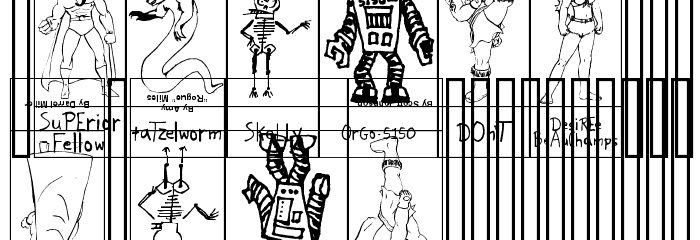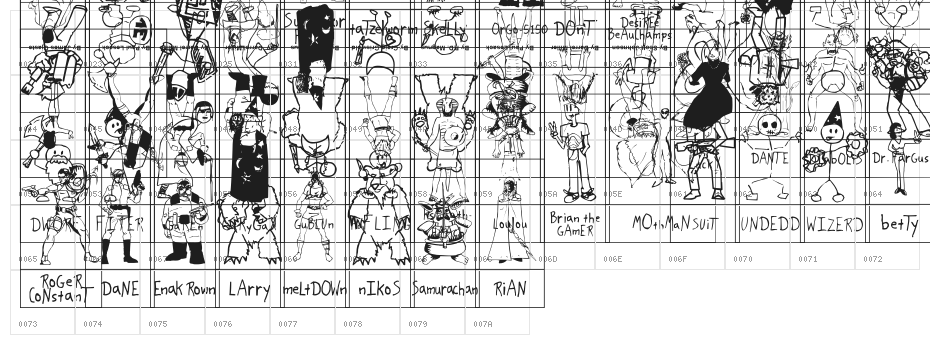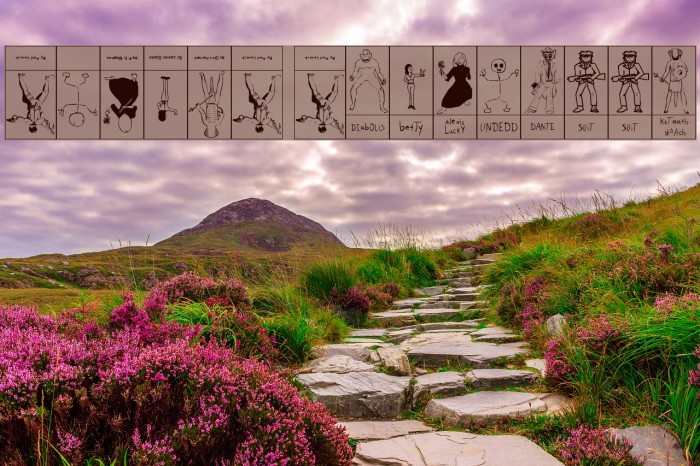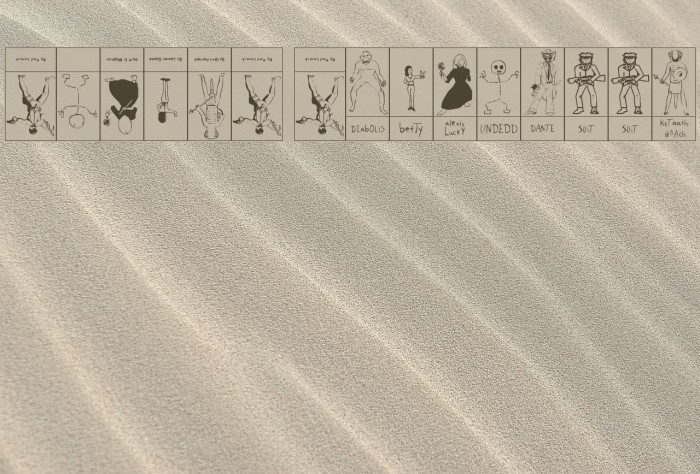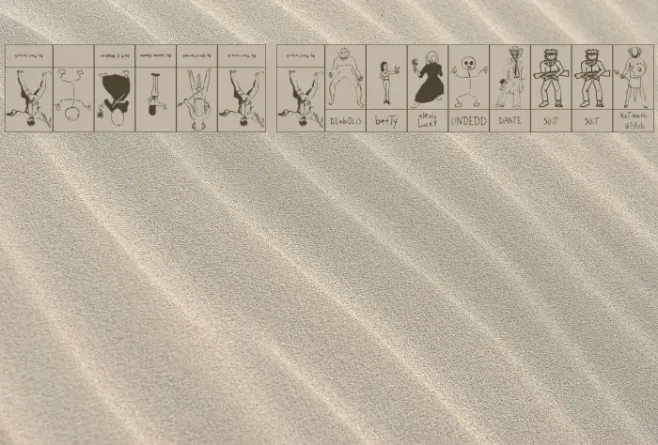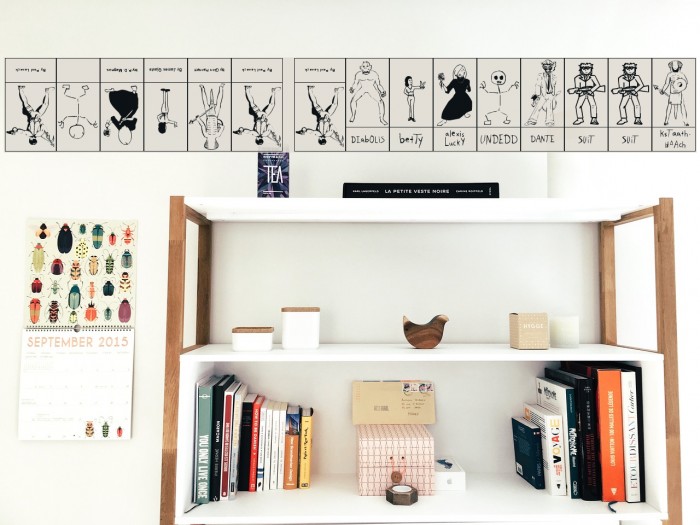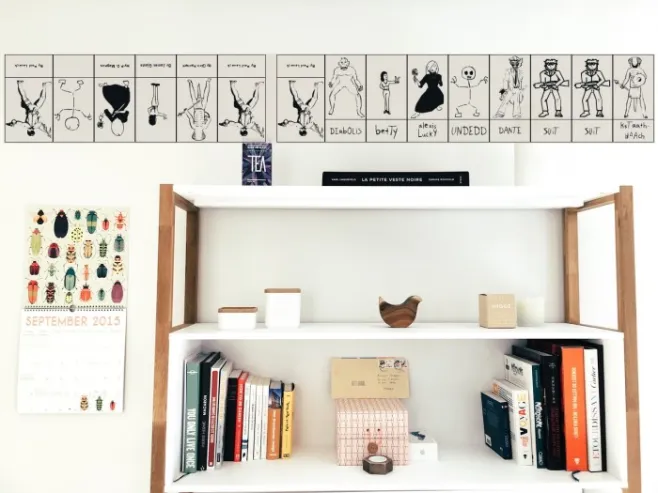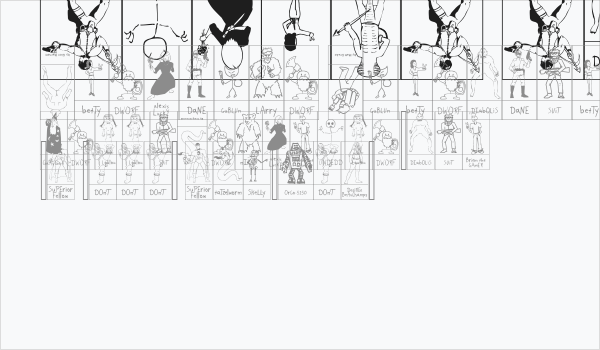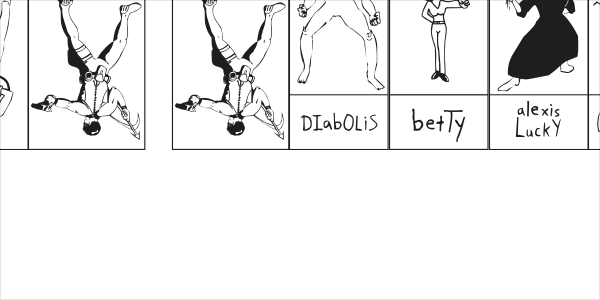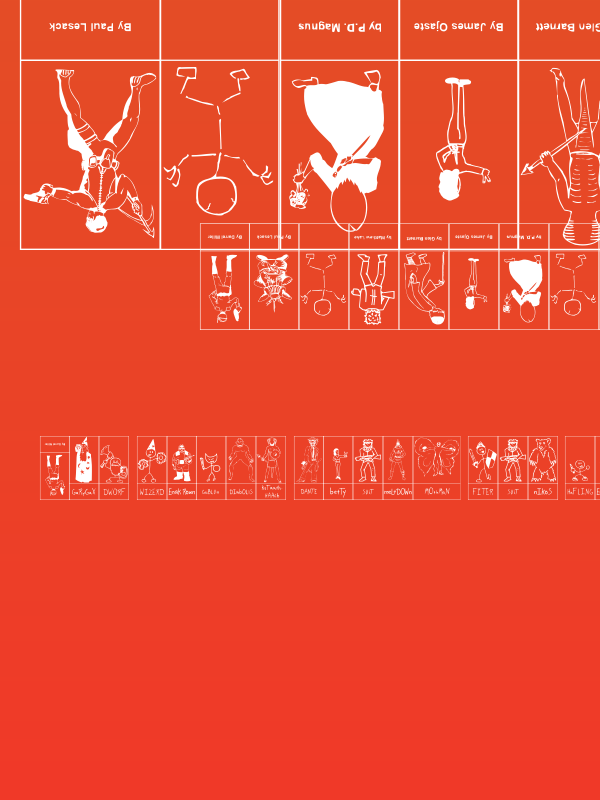
SPARKS Scrapbook Font
SPARKS Scrapbook Description
This font features a playful and whimsical design, characterized by its hand-drawn, cartoonish style. Each character is uniquely crafted with exaggerated features and a sense of movement, making it ideal for creative and informal projects. The letters are bold and have a slightly irregular shape, adding to the font's charm and personality. The numbers and special characters maintain the same playful aesthetic, ensuring consistency across all text elements. This font is perfect for projects that require a fun and engaging visual element, such as children's books, comic strips, or playful branding materials.
| Overall Style | Whimsical, Playful, Cartoonish |
| Proposed Projects | Children's books, comic strips, playful branding, greeting cards, and creative posters. |